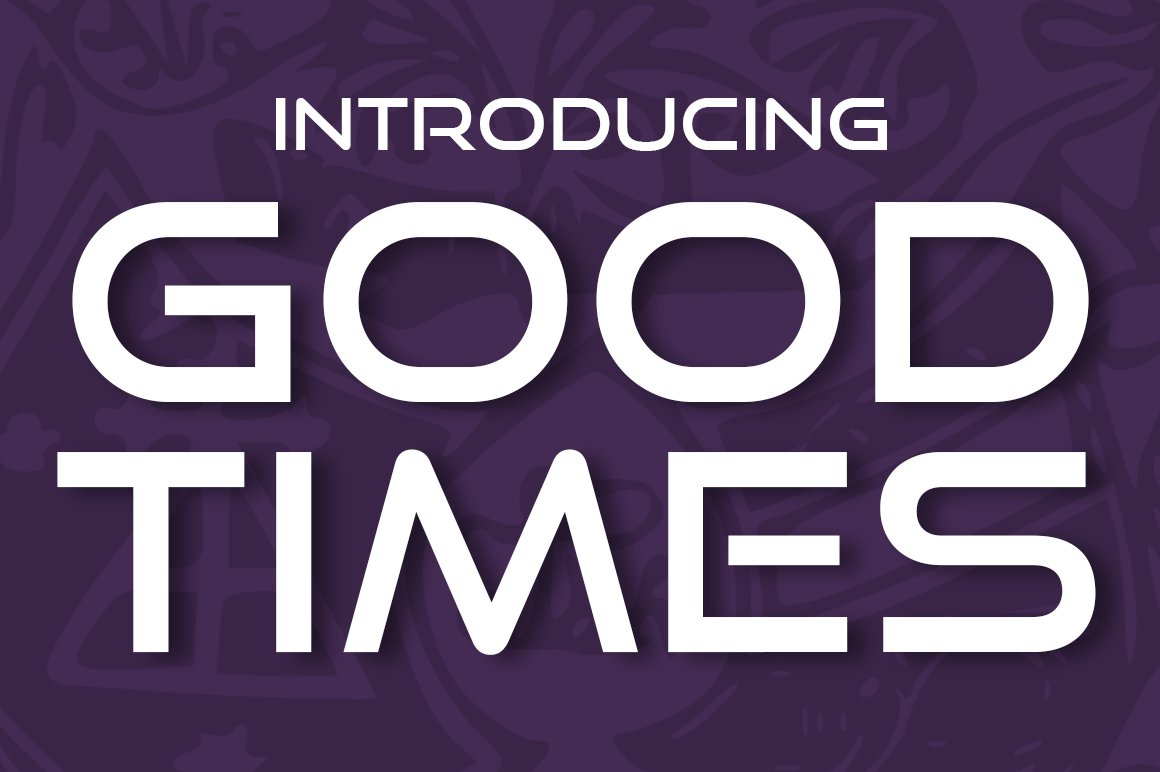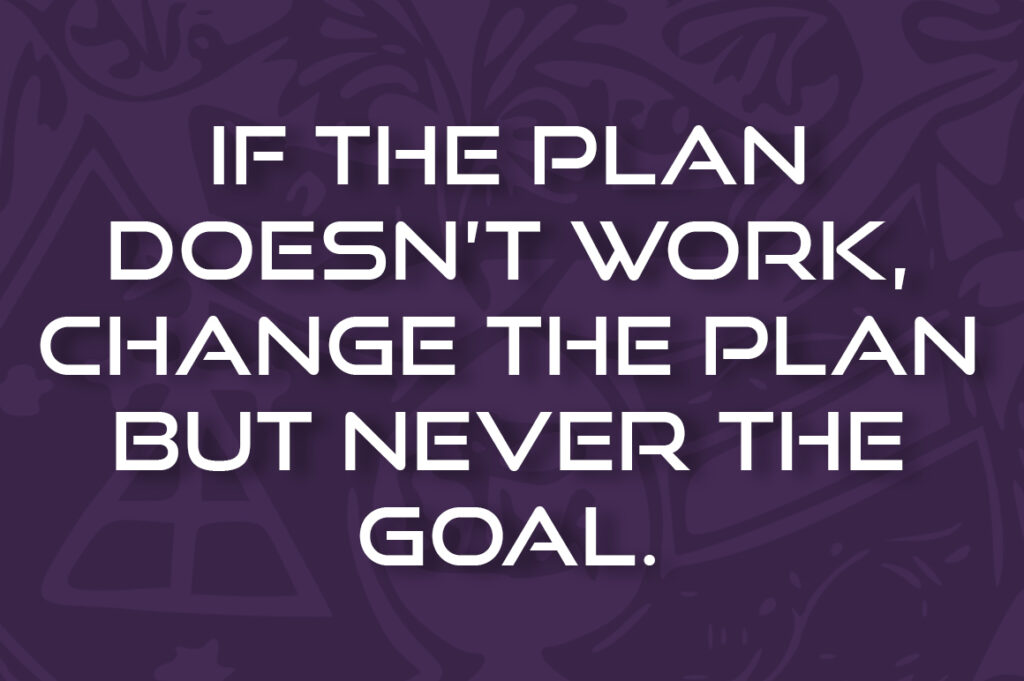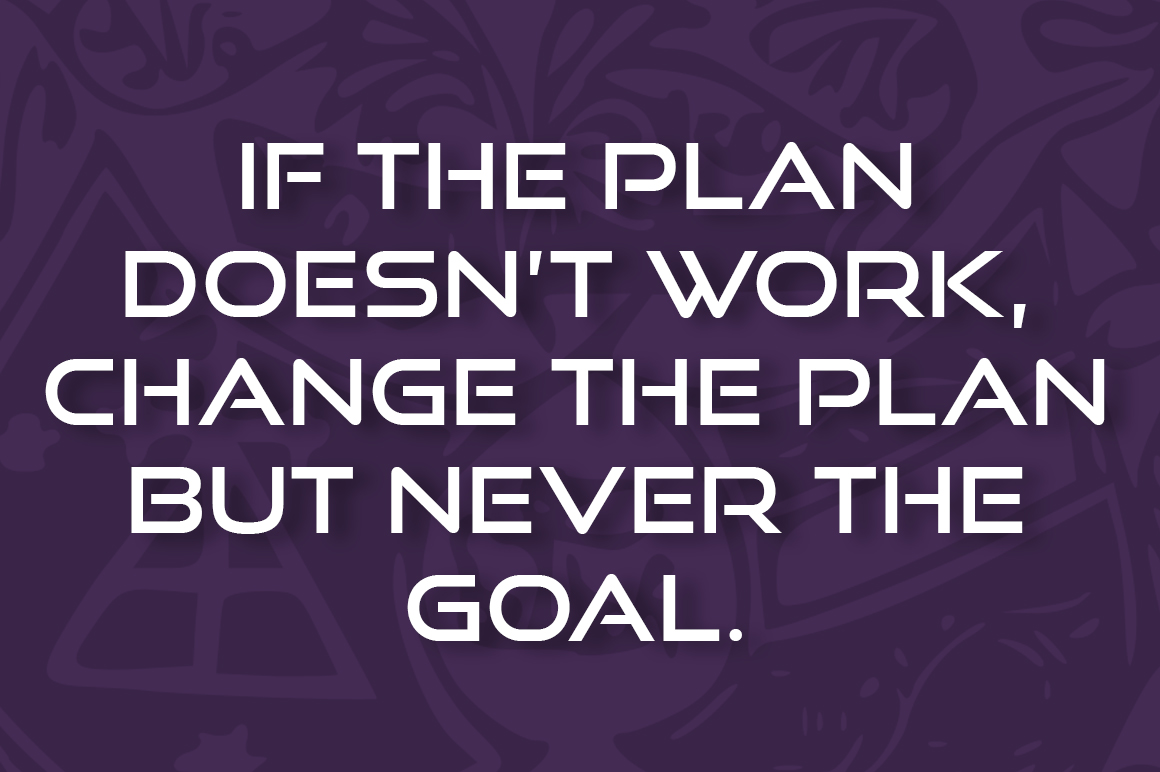
HomePersonal Use FreeGood Times Personal Use Free Good Times FacebookTwitterPinterestWhatsApp 1 of 2 About Good Times Font Good Times is a stunning sans-serif display font crafted to have a stenciled, futuristic feel. This free font is offered by Typodermic. DOWNLOAD NOW People also explored Aylafs Font Sage Mondial Font Explicit Font Hampshire Font Crossroads Mayfair Font Ameliana Script Font Butterfly and Roses Font Katrine Font 193 0 TagsGood Times Font Previous articleGunplayNext articlePricedown LEAVE A REPLY Cancel reply Comment: Please enter your comment! Name:* Please enter your name here Email:* You have entered an incorrect email address! Please enter your email address here Website: Save my name, email, and website in this browser for the next time I comment. Personal Use Free Doriath Personal Use Free Read more about this font Sefiya Personal Use Free Read more about this font Mallvirra Personal Use Free Read more about this font Vembazax Rm Personal Use Free Read more about this font BLOG Free Fonts Risk: Why Free Fonts Can Be Dangerous for Designers Free Fonts Risk: Why Free Fonts Can Be Dangerous for Designers Using free fonts is a common practice in web and graphic design. However, the... Top 7 Google Fonts Alternatives for Faster and Privacy-Friendly Web Design (2025) To increase your work productivity, choose the most readable fonts. Best Fonts for YouTube Videos: Make Your Thumbnails Stand Out